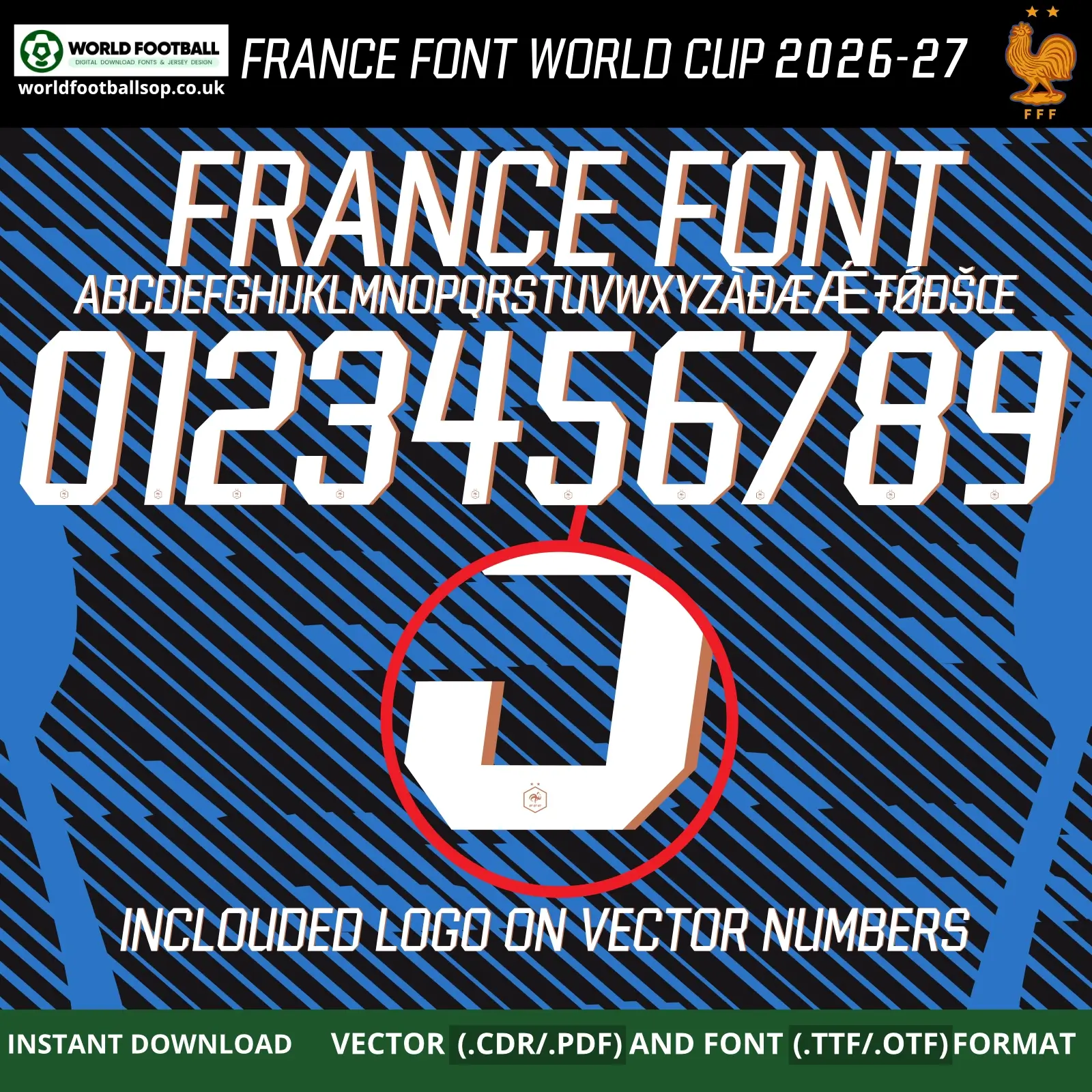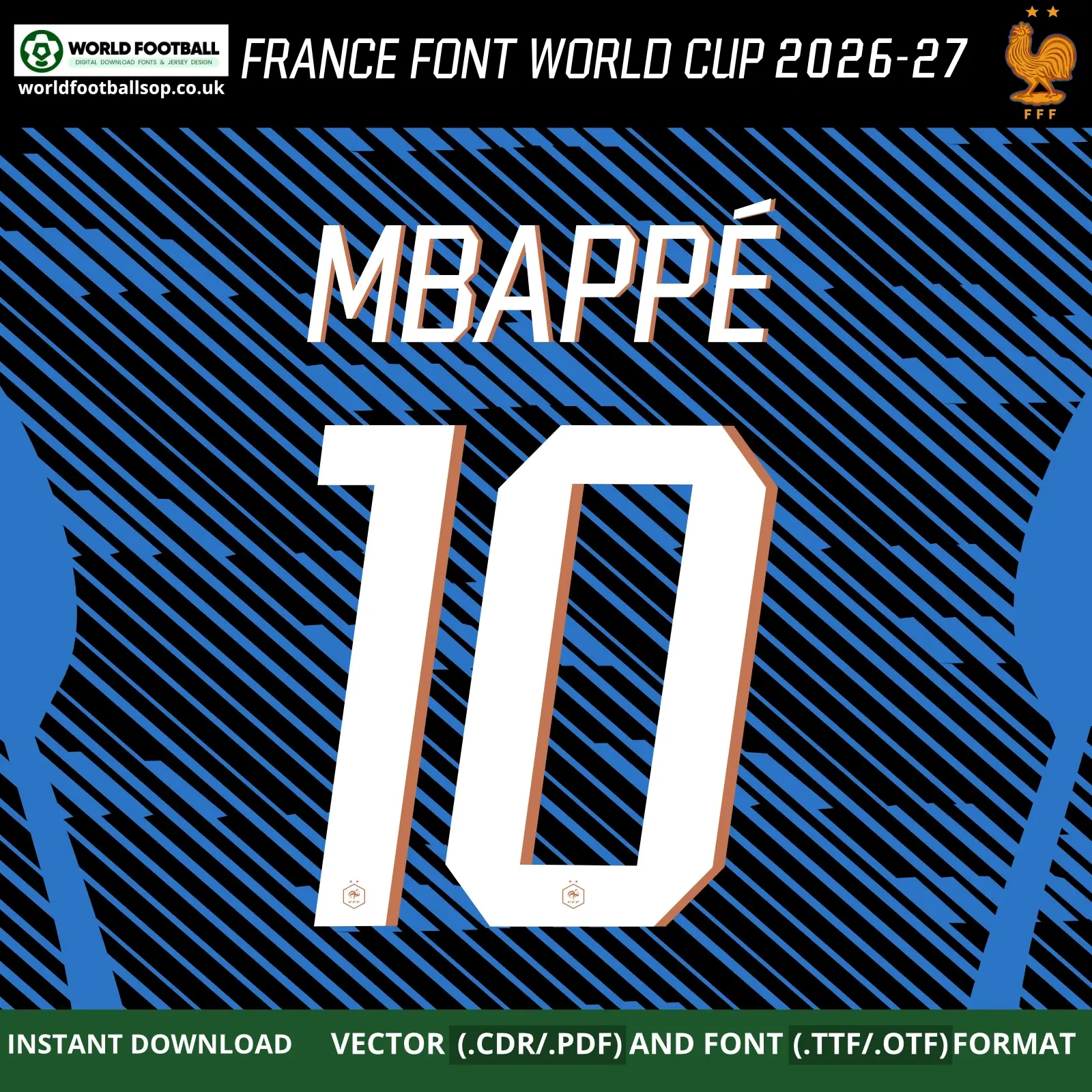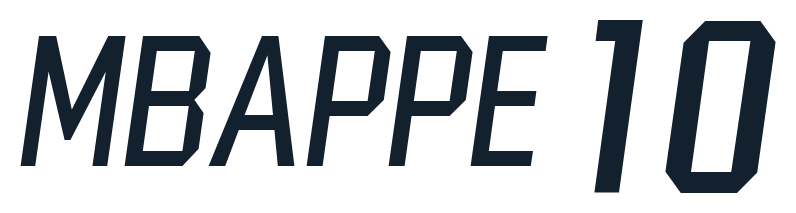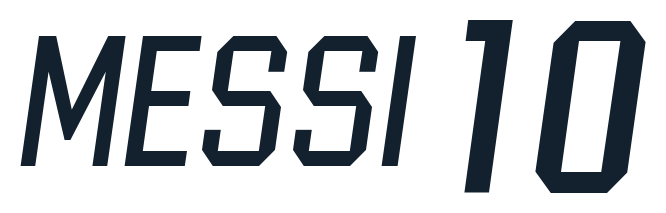
France Font Home World Cup 2026 - Game Royal & Copper
The France Font Home World Cup 2026 pack is based on Nike’s official kit font for Les Bleus’ Statue‑of‑Liberty inspired home jersey. Your design mirrors the tall, narrow characters with angled cuts and subtle corners that give a fast, elegant feel suited to France’s attacking style. On your covers the digits are bright white with metallic‑copper 3D shading, sitting over a Game Royal and navy lightning‑diagonal pattern that matches the 2026 home shirt fabric.
This set is perfect for kit printers, designers and collectors wanting accurate France 2026 World Cup home namesets for stars like Mbappé, Dembélé and Griezmann. Vector versions place an FFF crest badge at the base of each number, while the installable TTF/OTF Fonts Football remain clean for posters, overlays and social media graphics.
Full uppercase A-Z alphabet plus extended characters (Á Â Ä Æ É È Ë Œ Ç, etc.) to cover French and international player names.
Numbers 0-9 in official home style, sized for back printing and adaptable for shorts or sleeve applications.
Preview layouts: MBAPPÉ 10 single nameset, full numeric and alphabet sheet, and zoomed number detail showing the copper shadow and crest.
Design highlights
Slim modern look: Tall condensed digits with crisp inner cuts give a sleek, contemporary French aesthetic.
Royal blue and copper palette: White numbers with metallic‑copper edging pop against the dark Game Royal base, echoing the Statue‑of‑Liberty story behind the kit.
High visibility: Strong contrast and generous vertical proportions ensure excellent readability on TV and in stadiums.